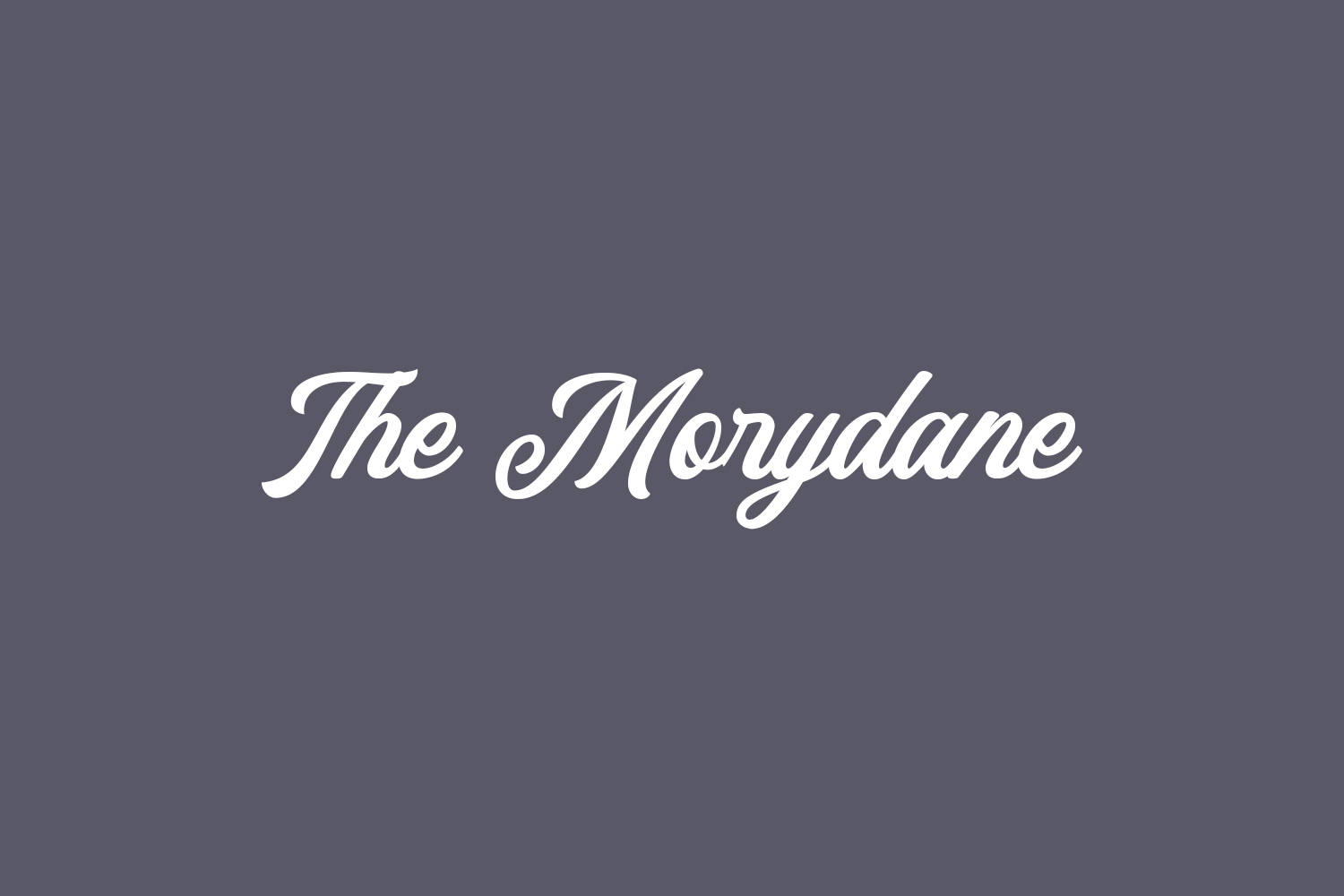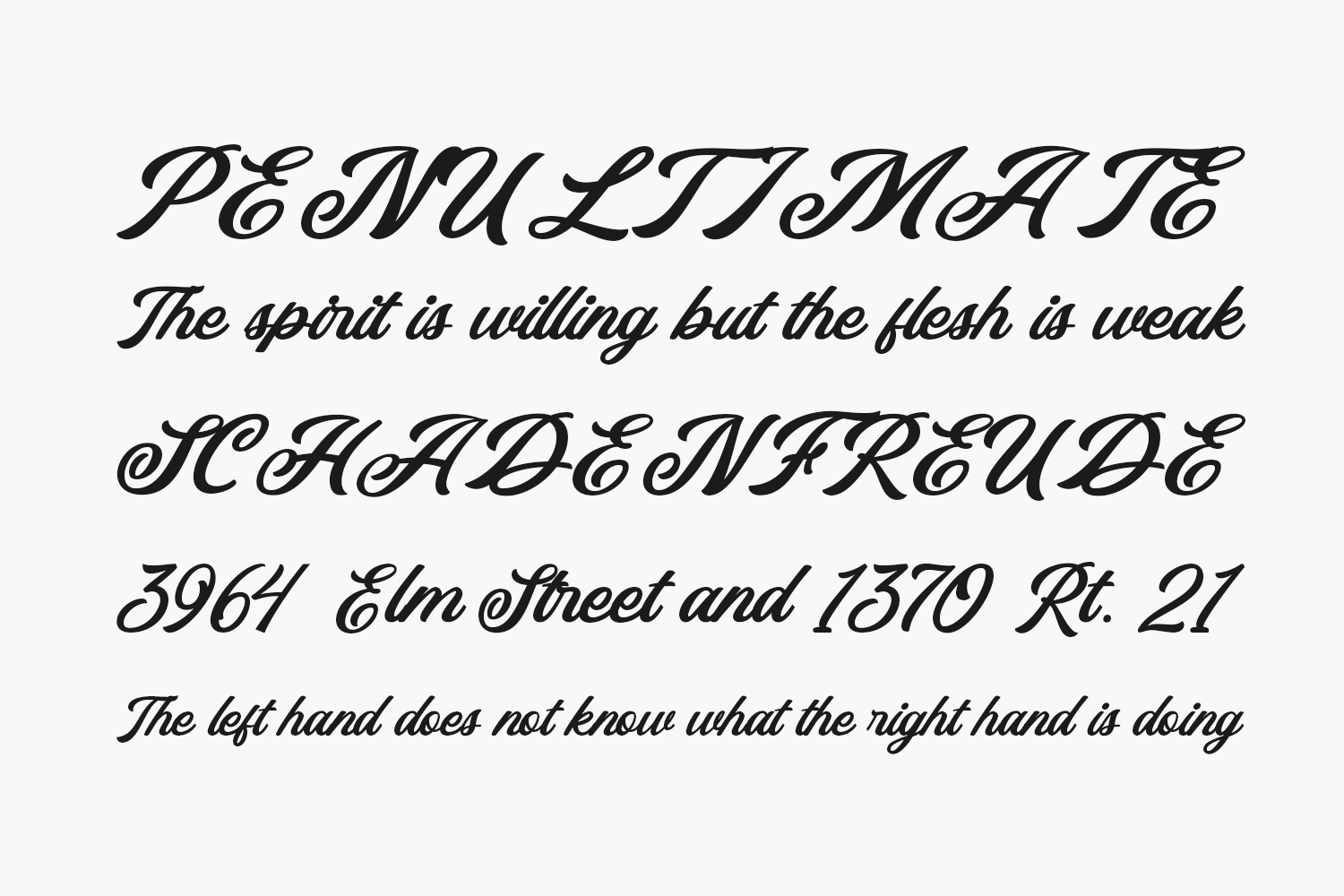
The Morydane is a graceful calligraphic script font designed by Letterhend Studio to bring timeless elegance and readability to your creative projects. With its smooth strokes, natural flow, and refined detailing, this free decorative typeface works perfectly for crafting stylish logos, formal stationery, luxury packaging, and more. Available in OTF format with support for Latin characters — ideal for designers seeking a sophisticated script font that blends classic beauty with modern clarity.
Why Choose The Morydane?
- Elegant Style: Combines classic handwriting aesthetics with clean legibility for a polished, professional look.
- Ideal for Invitations: Perfect for wedding cards, RSVPs, or event stationery sets needing a romantic tone.
Where to Use The Morydane?
The Morydane shines across a variety of creative applications:
- Logos & Branding: Adds sophistication to brand identities of luxury fashion labels, boutique shops, or artisanal brands.
- Wedding Invitations: Brings warmth and charm to formal stationery sets, envelopes, and bridal name typography.
- Social Media Quotes: Creates elegant text overlays for Instagram Stories, Pinterest pins, or TikTok videos.
- Packaging Design: Ideal for product labels on candles, perfumes, or handmade goods needing a refined appearance.
- Editorial Headers: Stands out in magazine covers, blog headers, and advertising campaigns with a human touch.
Design Tips with The Morydane